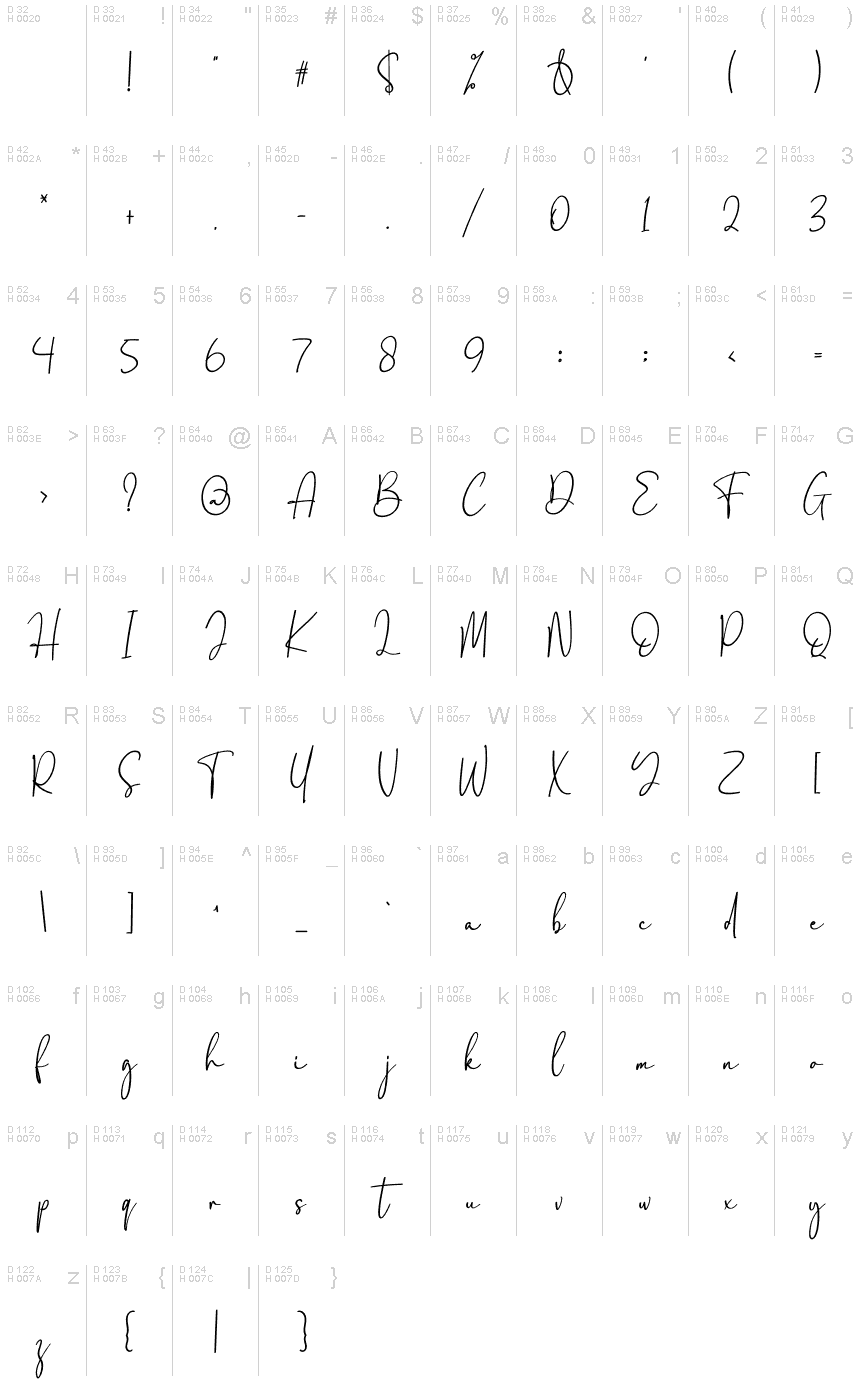
Santiago
Santiago, a stunning creation by font designer Kateeng Ciu, is the embodiment of elegance and modernity. This exquisite handwritten font boasts an extra-light weight that adds a delicate touch to any project. With its semi-condensed width, Santiago exudes sophistication and versatility.
Perfect for captivating letterheads, eye-catching titles, and stylish stationery designs, this font will effortlessly elevate your creative ideas. Whether you're working on branding materials or crafting invitations for special events, Santiago will infuse your projects with a timeless charm that leaves a lasting impression.